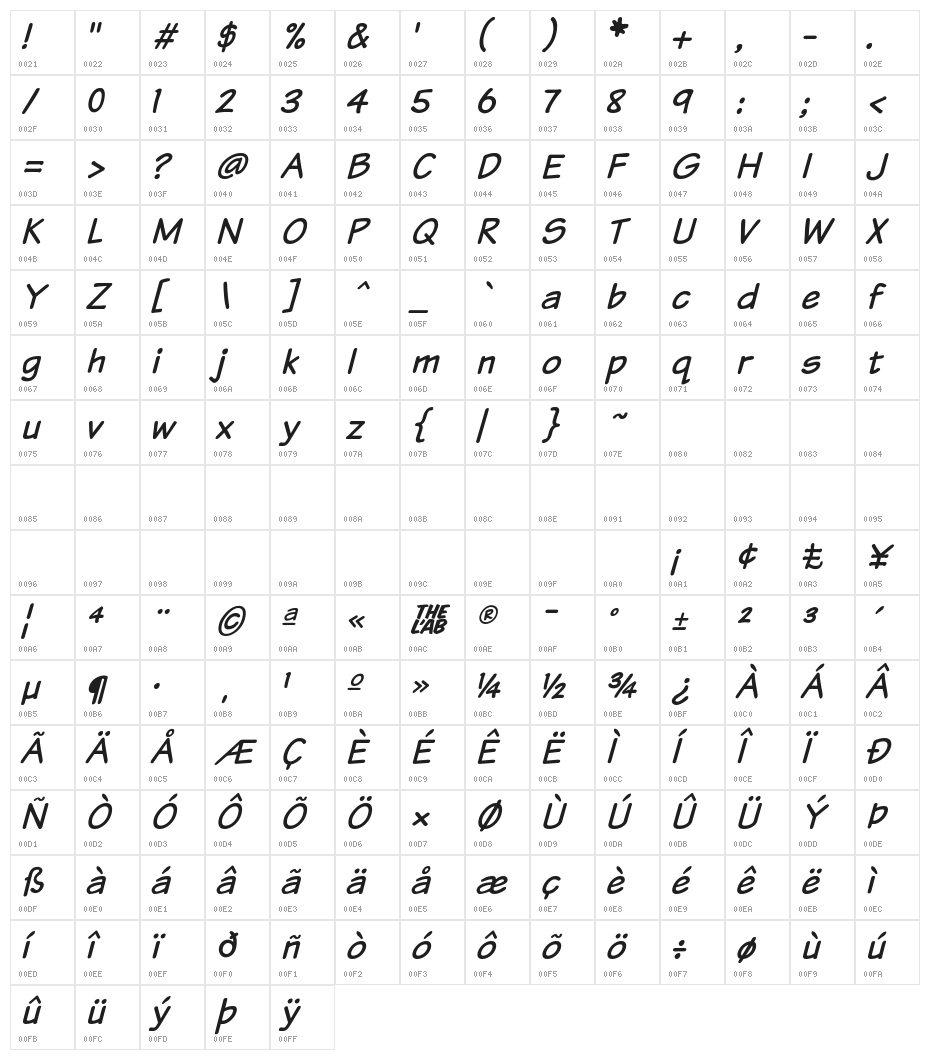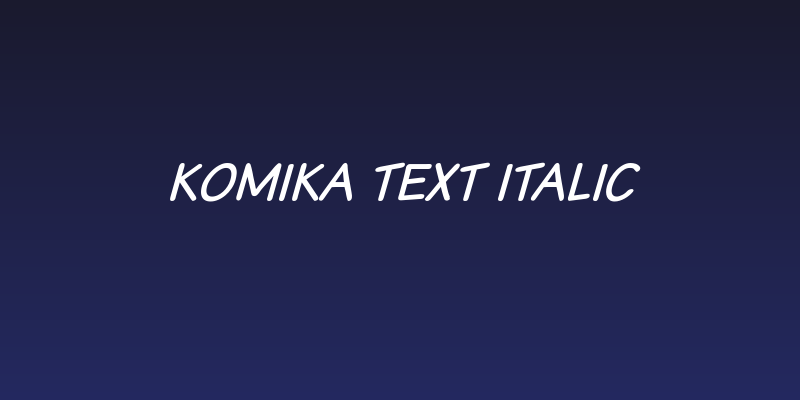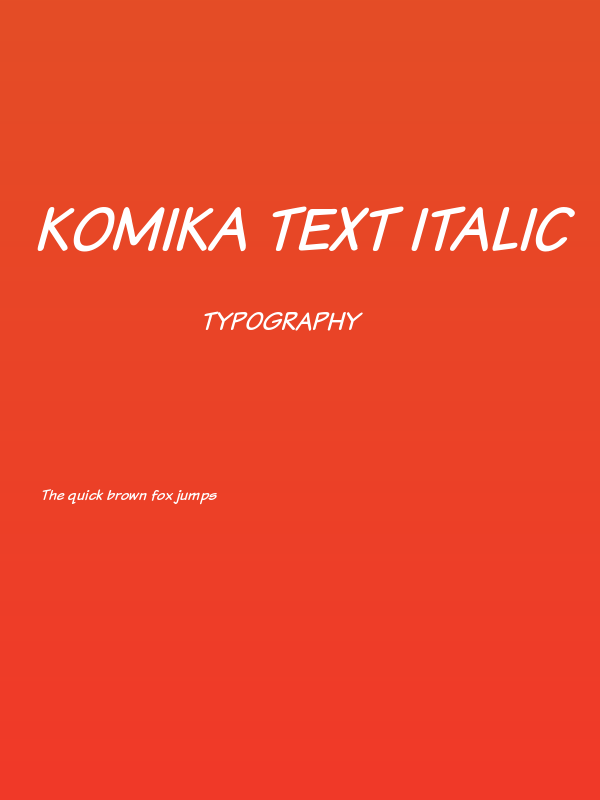
Komika Text Italic Font
Komika Text Italic Description
This playful and dynamic font features a handwritten style with a slight slant, giving it an informal and casual appearance. The letters are bold and rounded, with smooth curves and consistent stroke widths that create a friendly and approachable look. The uppercase and lowercase characters maintain a uniform style, while the numerals and special characters complement the overall design. This font's energetic and lively nature makes it ideal for projects that require a touch of fun and creativity.
| Proposed Projects | Ideal for comic books, children's books, playful branding, and casual invitations. |